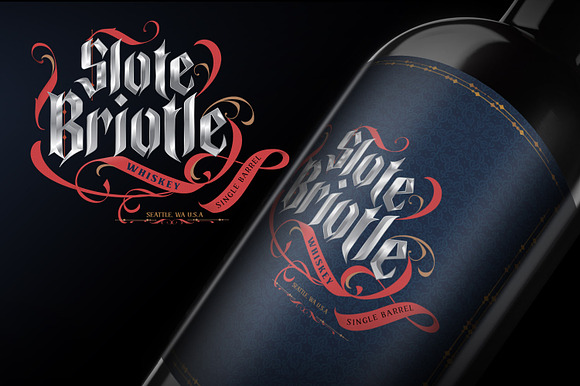
Gothic Blackletter Font
Introducing Cattedrale Gothic Blackletter Font, unique gothic blackletter for your design. Includes 4 styles plus ornaments. perfect for tattoos clothing, labels and packaging, branding, or any Gothic-themed projects!
- Includes 4 styles plus ornaments.
- Cattedrale Regular
- Cattedrale Ornament
- Cattedrale Outline
- Cattedrale Rough
- Cattedrale Sliced